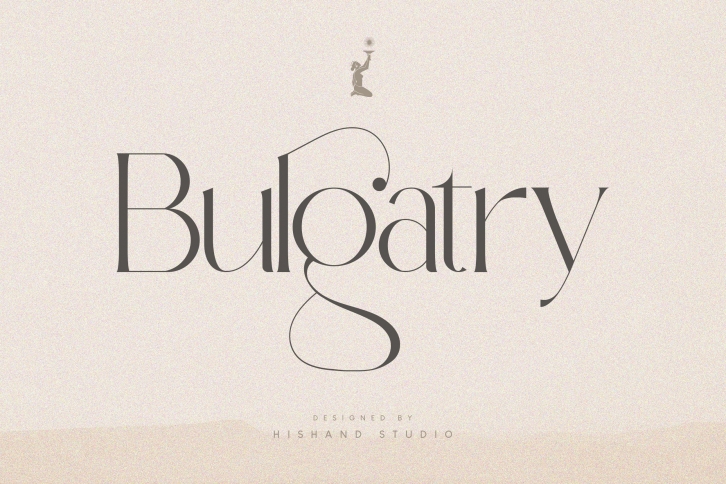
Bulgatry Elegant Serif is a beautiful font that was designed by Hishand studio. It's a great choice for designers and creatives who need such a font. It was released on September 5, 2022 and the file size is 14.71 MB. Bulgatry Elegant Serif may give a more youthful, expressive and casual look to your project. It is a very beautiful, refined, elegant, and high-quality font.